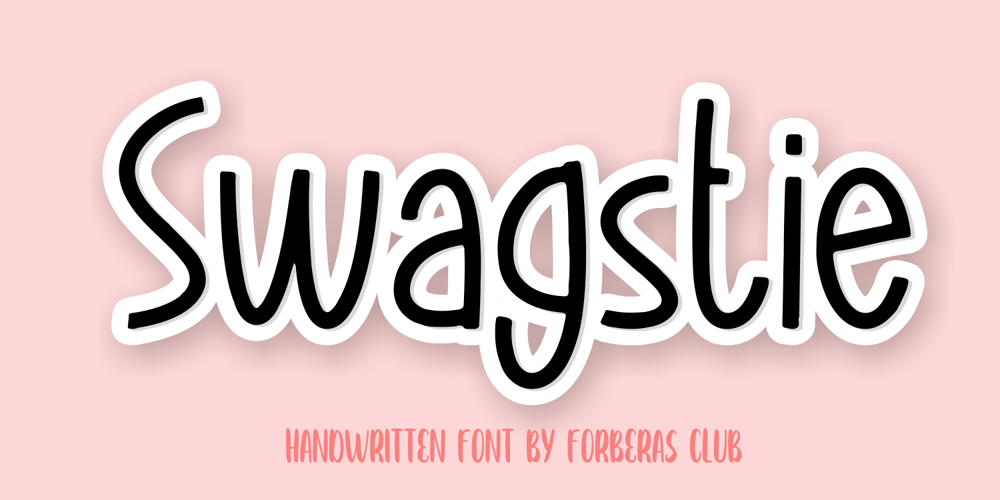
Swagstie Font Family was designed by ANGGI HERMAWAN and published by Forberas Club. Swagstie contains 1 styles and family package options. Swagstie is handwriting style. This font create and nice to application for memo, tees design, cover, writing text, home decor, wall art and many more.